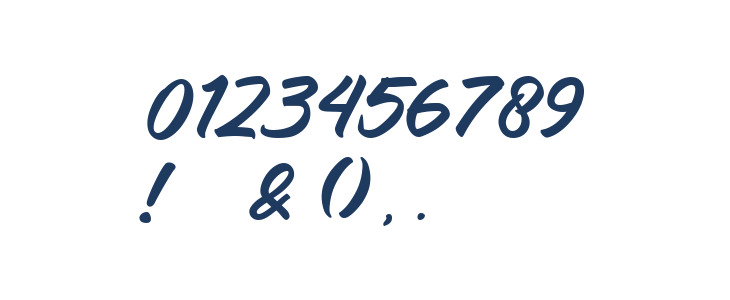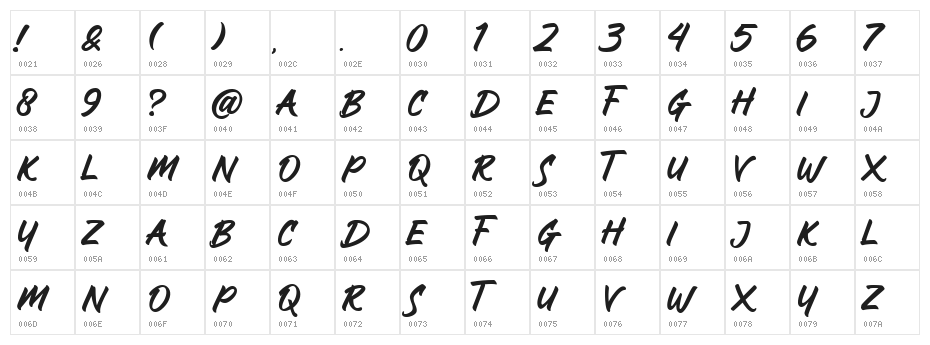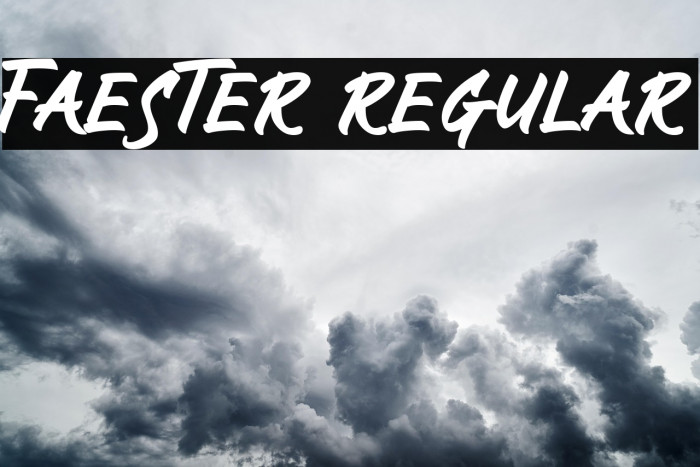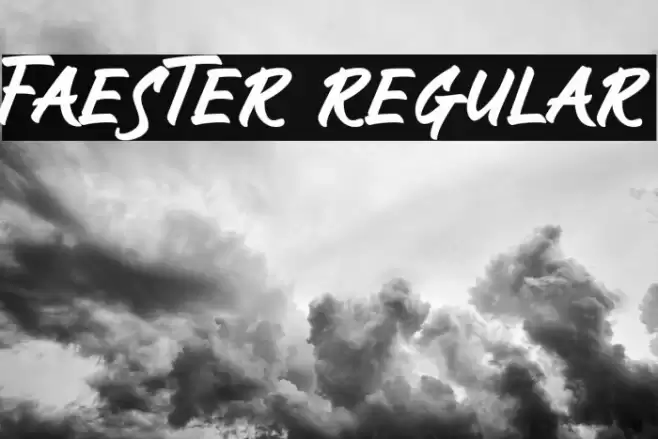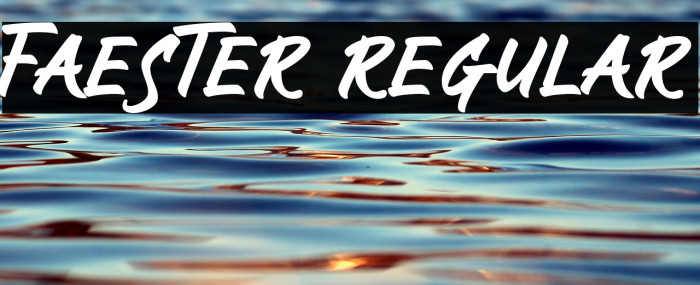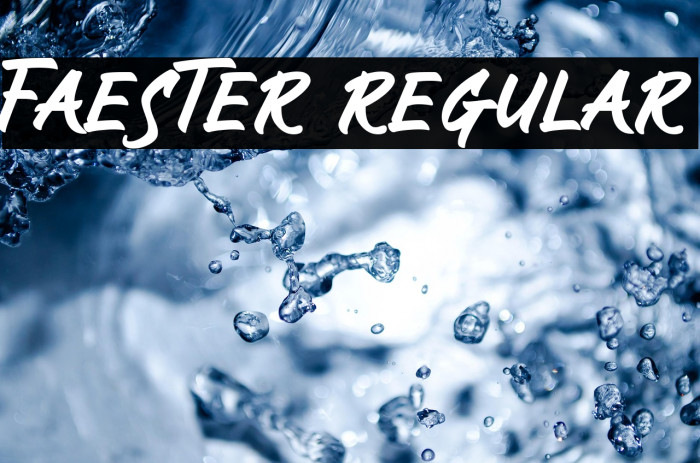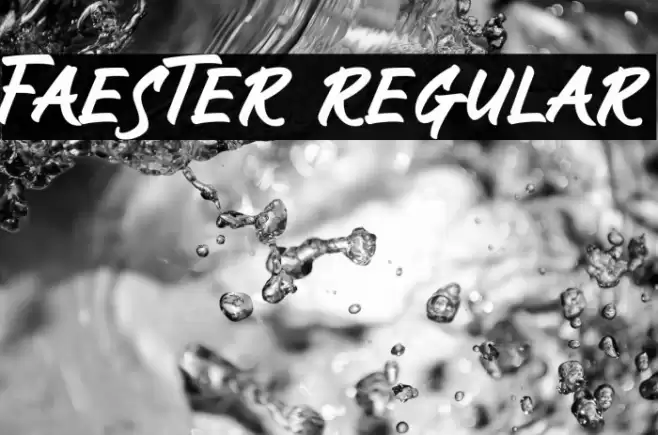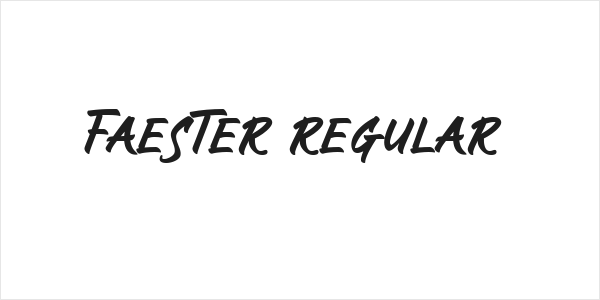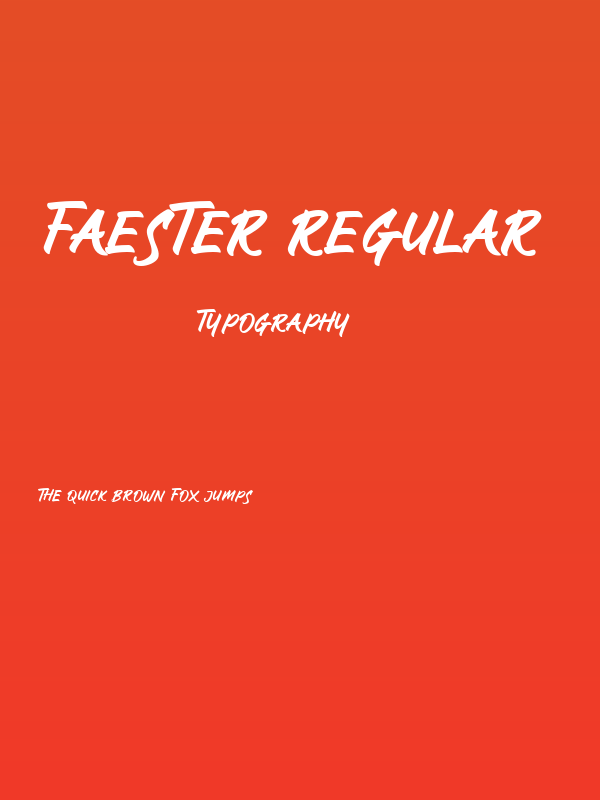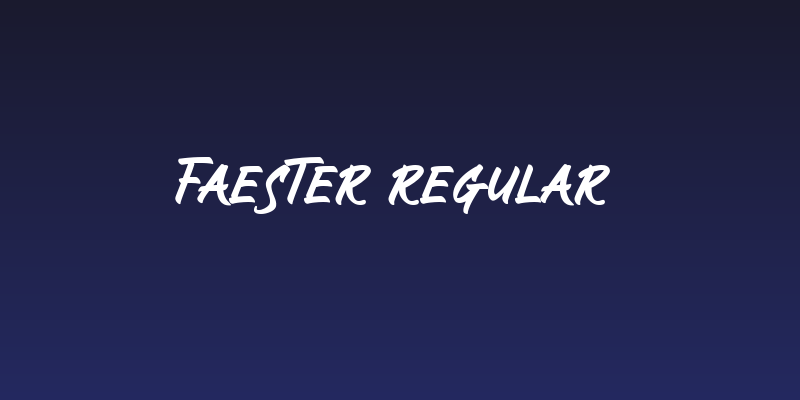
Faester Regular Font
Faester Regular Description
This font features a dynamic and energetic script style, characterized by its fluid, handwritten appearance. The letters are bold and slightly slanted, giving a sense of movement and spontaneity. The strokes are thick and consistent, with smooth curves and sharp edges that enhance its legibility. The uppercase and lowercase letters maintain a cohesive look, while the numbers and special characters are designed to match the overall aesthetic. This font exudes a casual yet sophisticated vibe, making it suitable for a variety of creative applications.